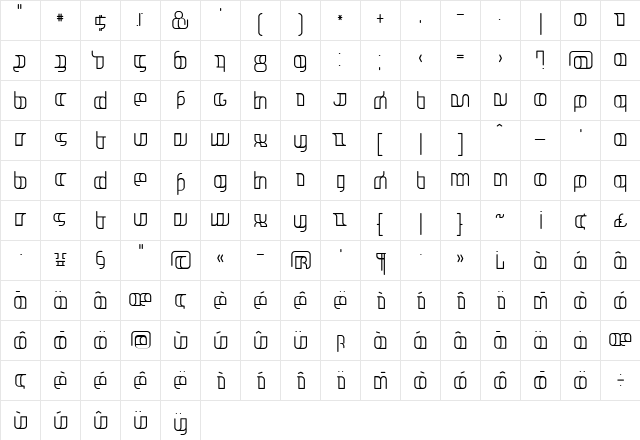
Jakone Condensed
Design Context for Jakone Typeface
Jakone takes a measured approach to typography — its balanced proportions and neutral character make it a reliable workhorse for both digital and print work. Its narrow stance lets it pack a punch even in space-constrained designs.
Pro Tip: Pair Jakone with a font of contrasting weight or personality to build a more expressive typographic hierarchy.